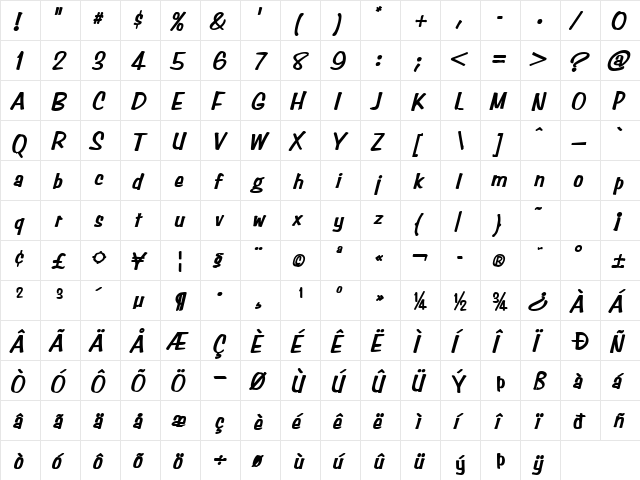
Simpson Heavy Italic
Design Context for Simpson Heavy Typeface
Simpson Heavy takes a measured approach to typography — its balanced proportions and neutral character make it a reliable workhorse for both digital and print work. The dynamic lean of this cut emphasises speed and emphasis in any layout.
Pro Tip: Use Simpson Heavy for emphasis, pull quotes, and subheadings where its slanted energy can add rhythm to the layout.